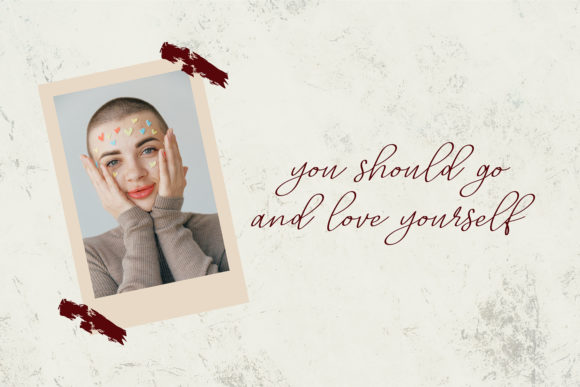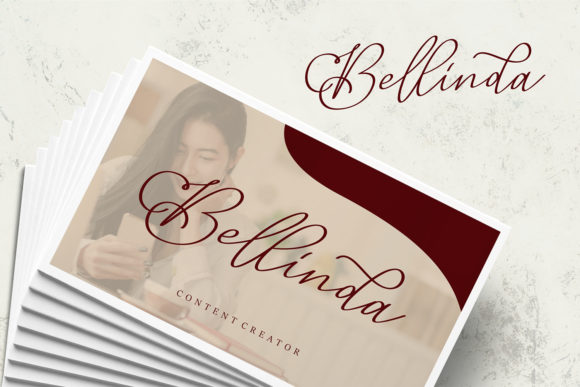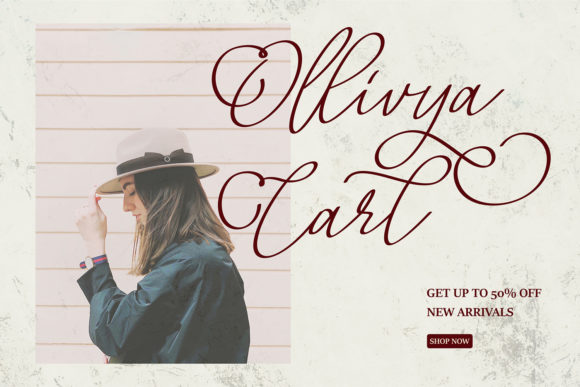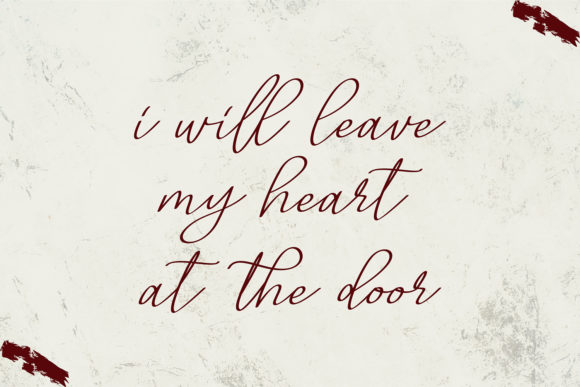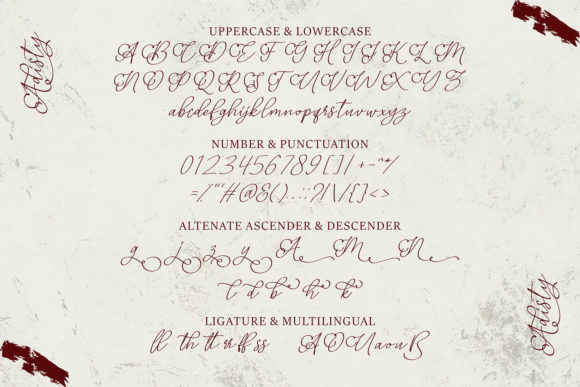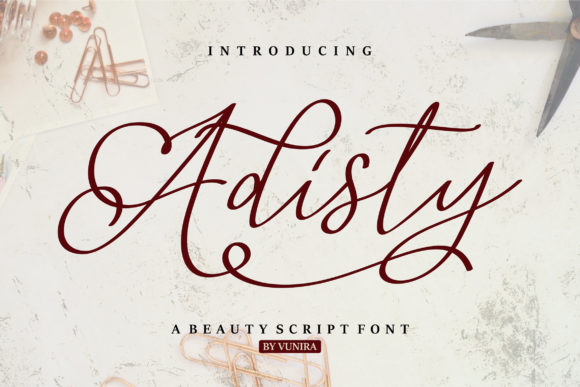
Introducing Adisty Font: The Timeless Handwritten Font for Stunning Designs
Are you a designer or crafter looking for a font that can elevate your creative projects to the next level? Look no further than Adisty Font, a lovely and timeless handwritten font that is sure to capture the attention of your audience. With its unique and beautiful touch, Adisty Font is the perfect choice for creating eye-catching logos, branding, and quotes that will make your design come alive!
The Beauty of Adisty Font
Adisty Font is a handcrafted font that boasts a distinctive and elegant style. Every letter has been carefully designed to have a unique and beautiful touch, which sets it apart from other fonts. The font’s handwritten nature gives it a personal and organic feel, making it perfect for designs that require a touch of warmth and personality.
Adisty Font is an incredibly versatile font that can be used for a wide range of design projects. Its elegant and sophisticated style makes it ideal for creating stunning logos, branding, and quotes that will leave a lasting impression on your audience. Whether you’re designing a logo for a new business, creating a brand identity, or crafting a quote for social media, Adisty Font is the perfect choice.
What Makes Adisty Font Stand Out
So, what makes Adisty Font stand out from other fonts? Here are just a few features that make it a cut above the rest:
- Unique and Beautiful Touch: Every letter in Adisty Font has been carefully designed to have a unique and beautiful touch, which gives it a distinctive and elegant style.
- Handwritten Nature: The font’s handwritten nature gives it a personal and organic feel, making it perfect for designs that require a touch of warmth and personality.
- Timeless Style: Adisty Font has a timeless style that will never go out of fashion. Its elegant and sophisticated design ensures that it will remain a popular choice for designers and crafters for years to come.
- Versatility: Adisty Font is an incredibly versatile font that can be used for a wide range of design projects, from logos and branding to quotes and more.
Tips for Using Adisty Font
Here are a few tips for using Adisty Font in your design projects:
- Use it for Headings and Titles: Adisty Font is perfect for headings and titles, where its elegant and sophisticated style can really shine.
- Pair it with Other Fonts: Adisty Font can be paired with other fonts to create a unique and visually appealing design. Try pairing it with a clean and simple font for a striking contrast.
- Experiment with Colors and Textures: Adisty Font looks great in a variety of colors and textures. Experiment with different colors and textures to find the perfect combination for your design.
In conclusion, Adisty Font is a lovely and timeless handwritten font that is perfect for designers and crafters looking to create stunning designs. With its unique and beautiful touch, elegant style, and versatility, Adisty Font is sure to become a favorite in your design arsenal. So why wait? Download Adisty Font today and start creating eye-catching logos, branding, and quotes that will leave a lasting impression on your audience!